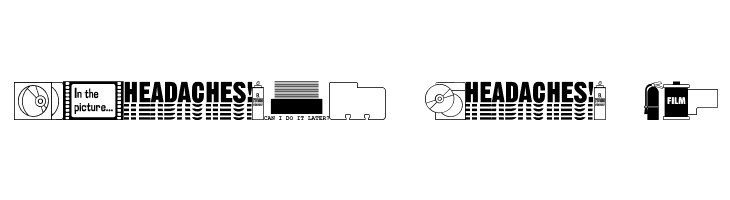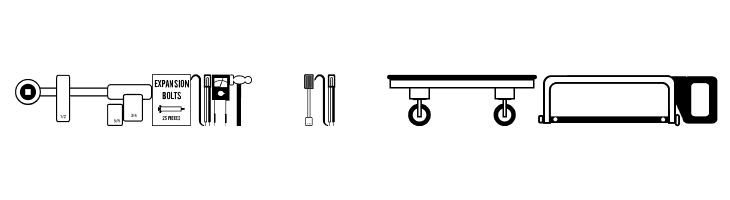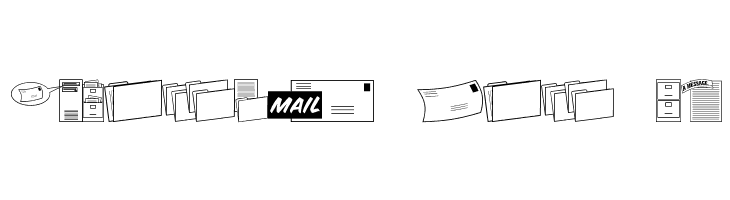
• Tools Rule! JL
A collection of tool-themed icons representing each character.
• Got A Ding For You JL
A decorative font with whimsical, retro-inspired graphics and symbols.
• Performance! JL
A decorative, vintage-inspired font with theatrical elements and bold, eye-catching letters.
• Quick Fix JL
Illustrative, tool-themed decorative font with high visual complexity.
• Envelopes JL
The image contains envelope designs and labels, not a font.
• Messages & Memos JL
An iconographic set depicting mail and office-related items.
• Old Standard Regular
• Old Standard Bold
• JOIA*
A geometric, angular font with a futuristic and technical style.
• PLOP
A bold, rounded font with a retro-modern style, perfect for headlines and logos.